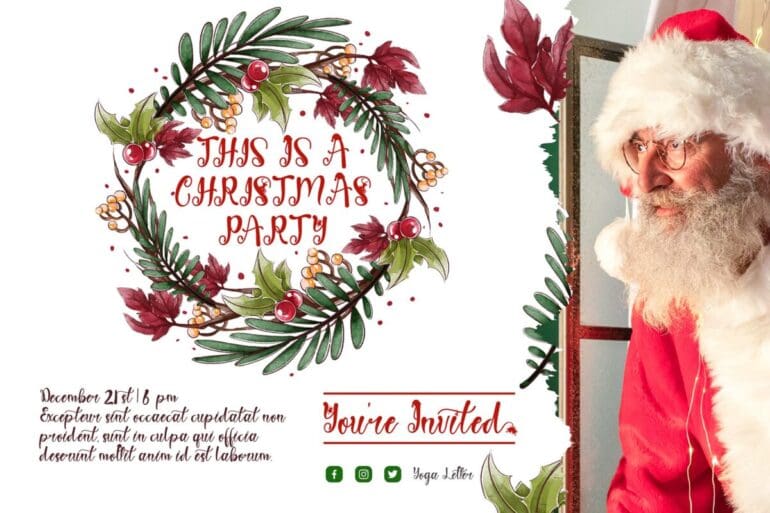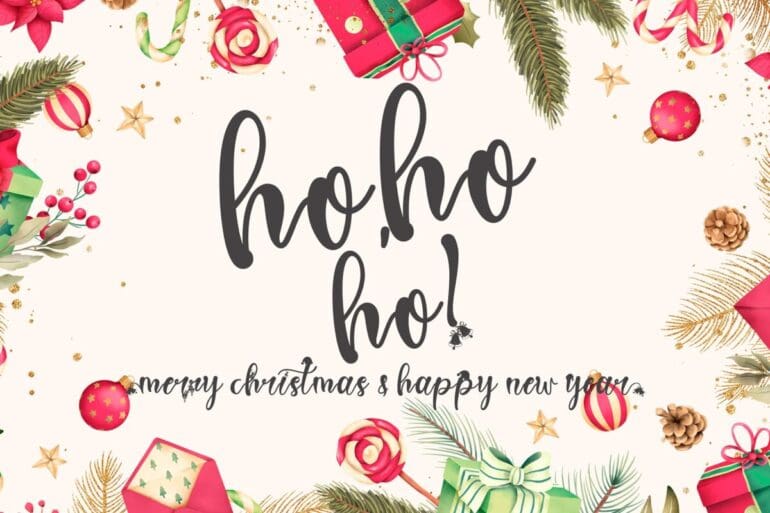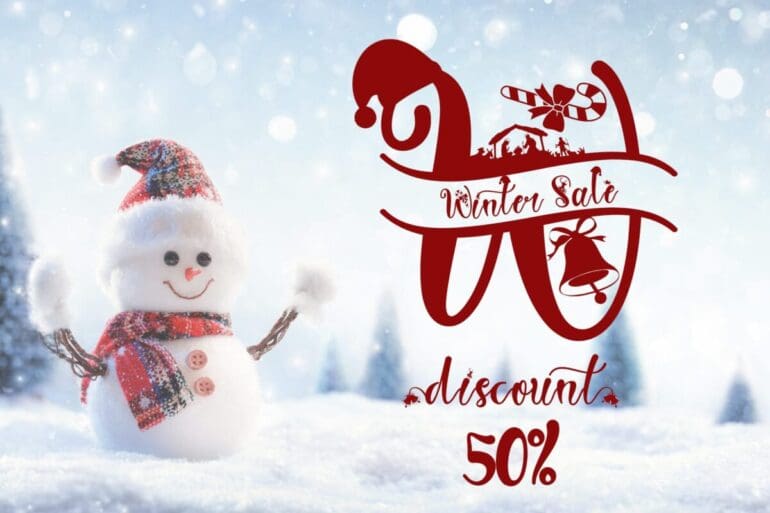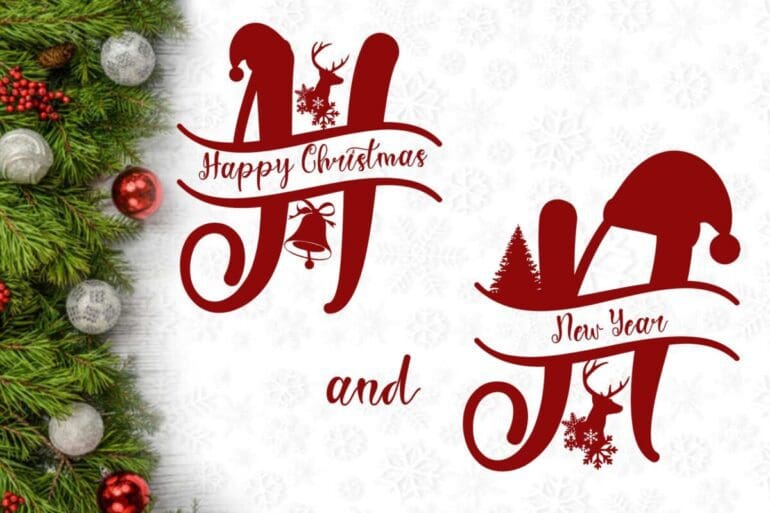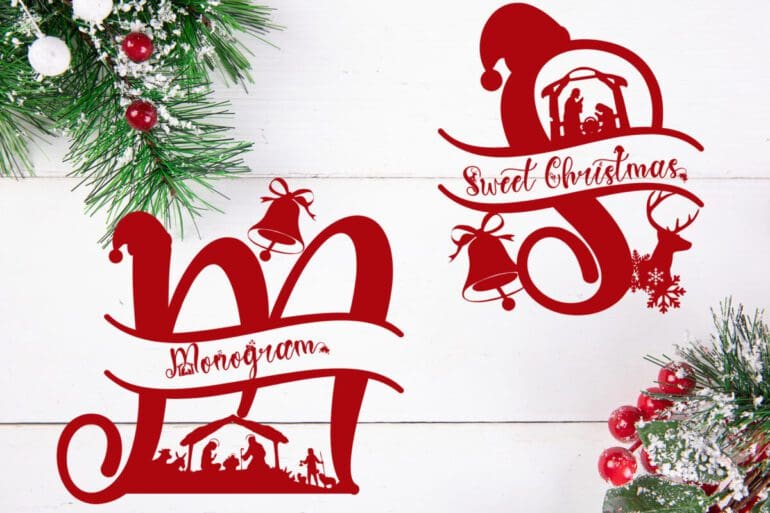
Sweet Christmas Monogram Font
Sweet Christmas Monogram is a script monogram font with a Christmas theme. This font is very beautiful with a variety of Christmas decorations equipped with a large logo in the form of a very amazing Monogram letter. This font is perfect for Christmas, New Years, invitations, and many other types of work.